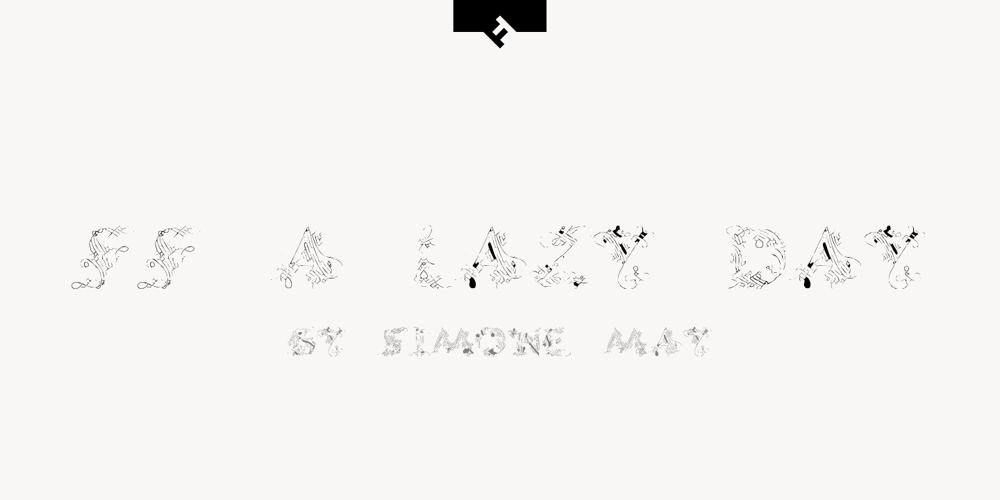
FF A Lazy Day
FF A Lazy Day font
FF A Lazy Day Font Family was designed by Simone May and published by FontFont. FF A Lazy Day contains 1 styles and family package options. German type designer Simone May created this display FontFont in 1995. The font is ideally suited for festive occasions and poster and billboard projects. FF A Lazy Day provides advanced typographical support with features such as ligatures and comes with tabular lining figures.